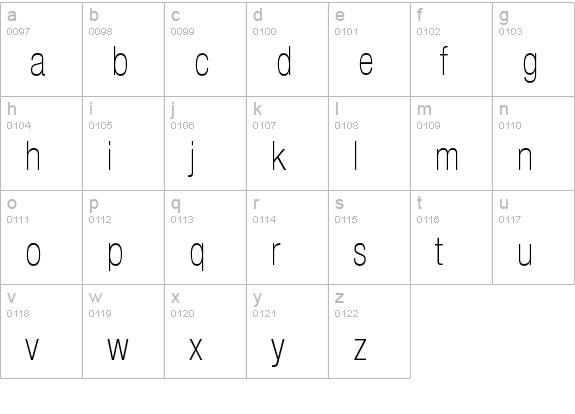
Olnova-LightCond is a sleek and modern typeface that exudes elegance and sophistication. With its condensed form and delicate lines, it is perfect for adding a touch of refinement to any design project. The clean and minimalist design of Olnova-LightCond makes it versatile and ideal for a wide range of applications, from branding to editorial design. Best of all, Olnova-LightCond is available for free download at FontsMarket.com. This means that you can easily access this stunning font and elevate your designs without any additional cost. So why wait? Download Olnova-LightCond today and take your projects to the next level with this beautiful and stylish typeface.